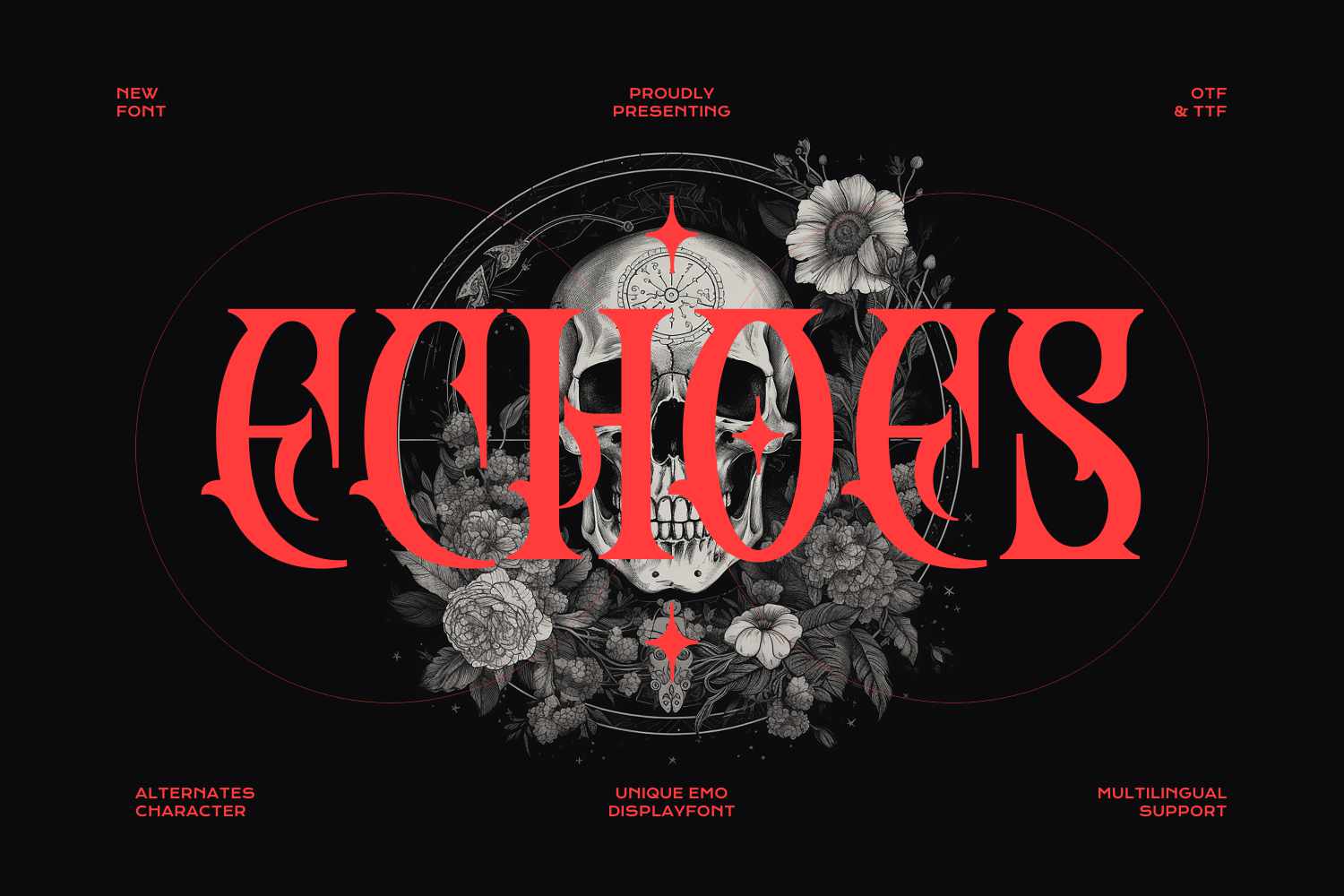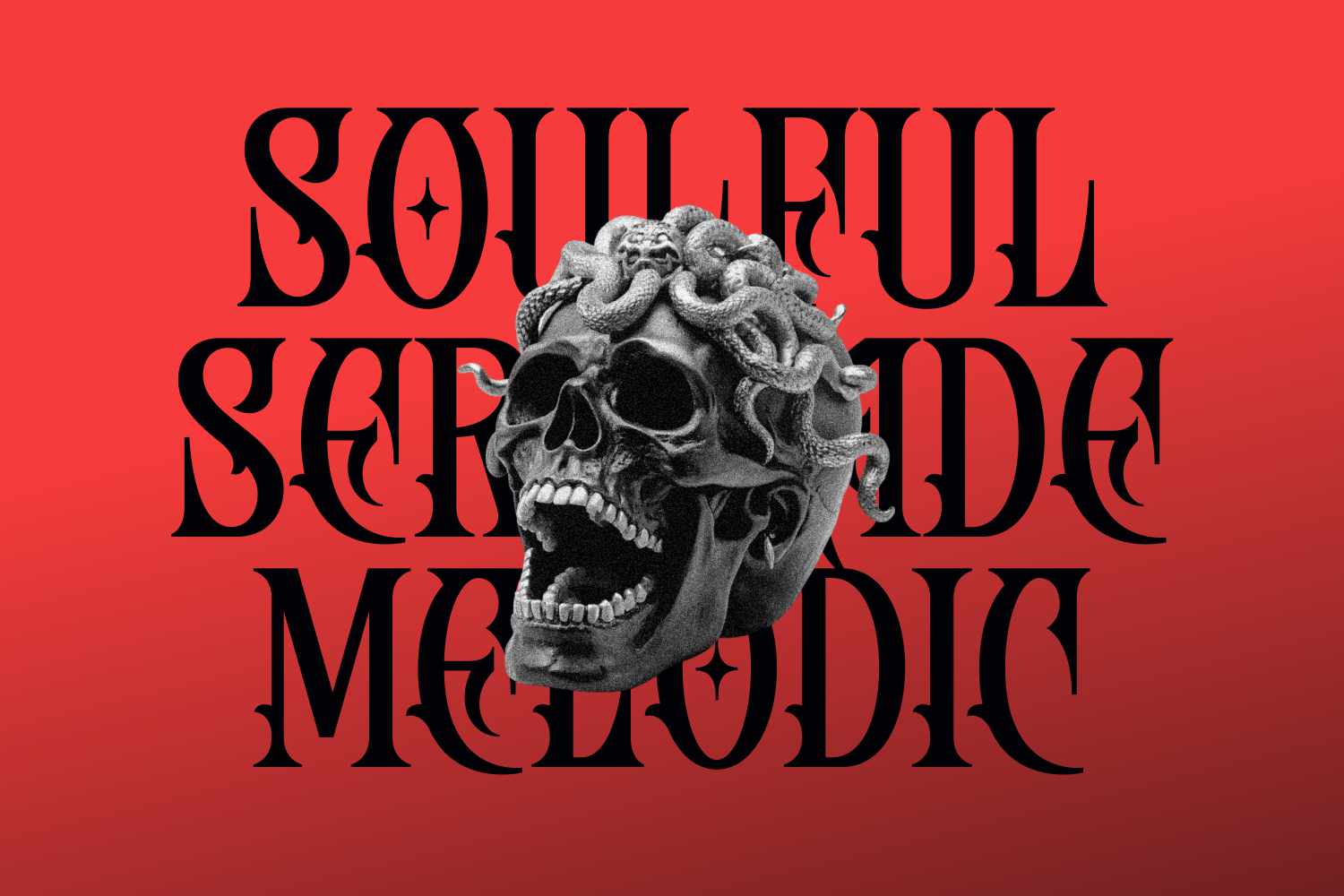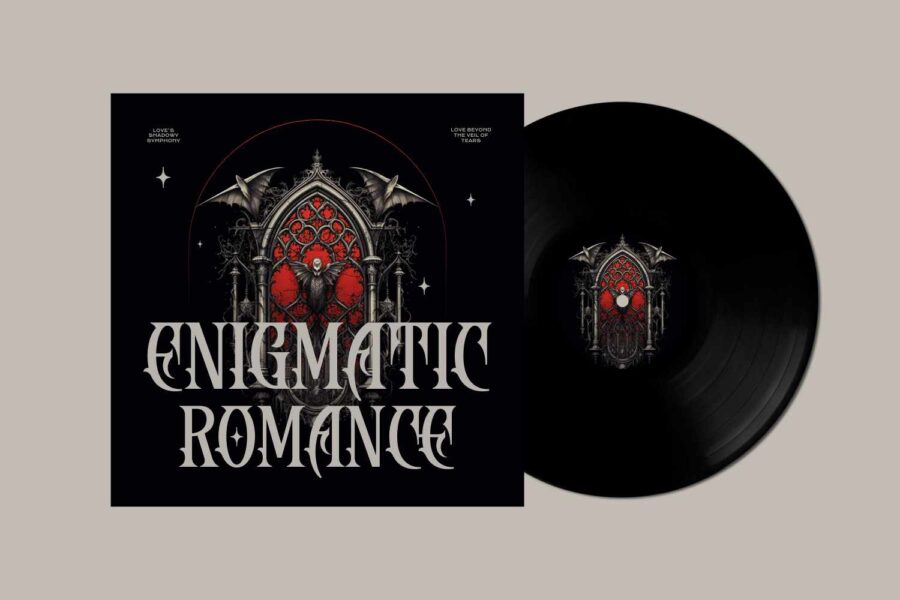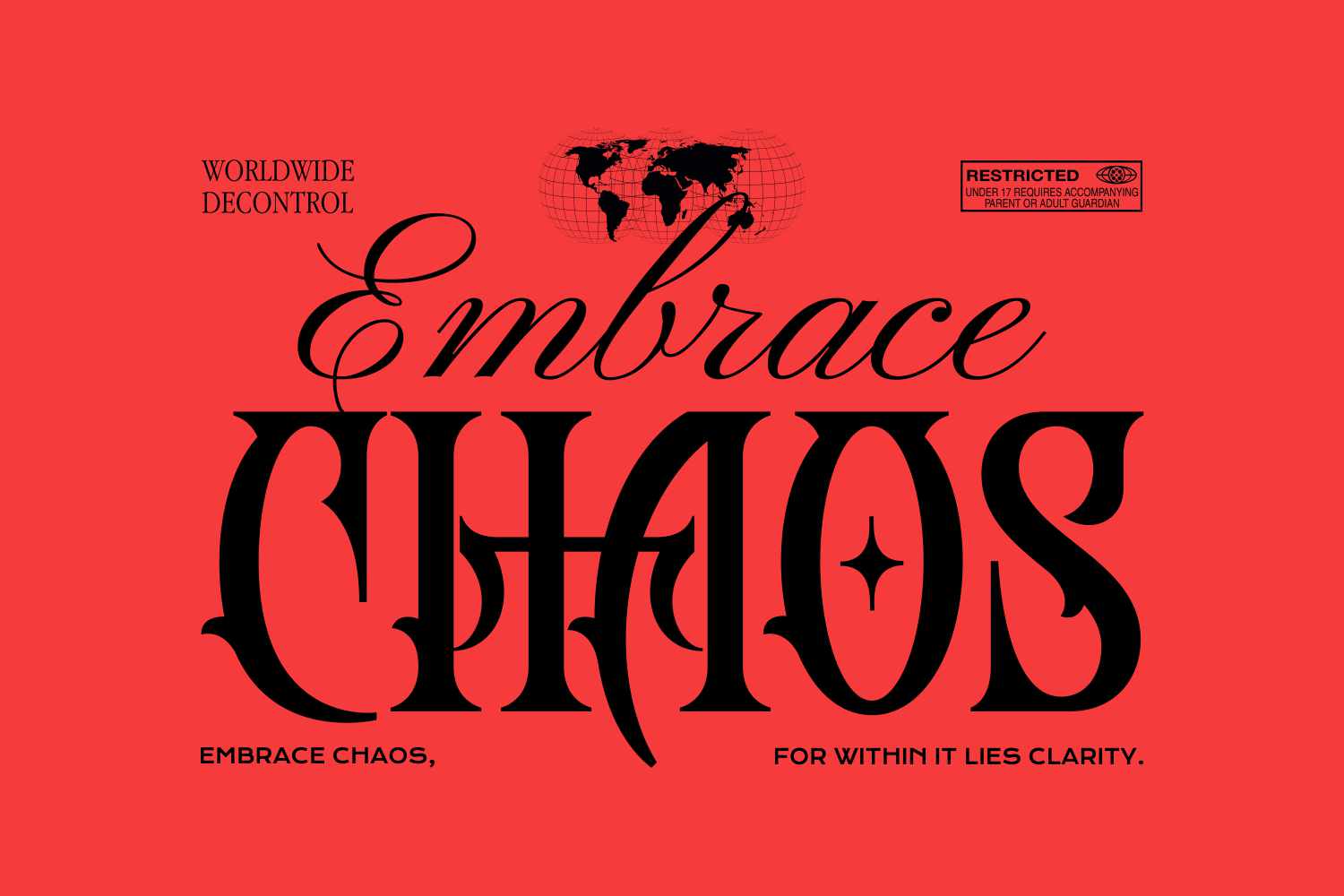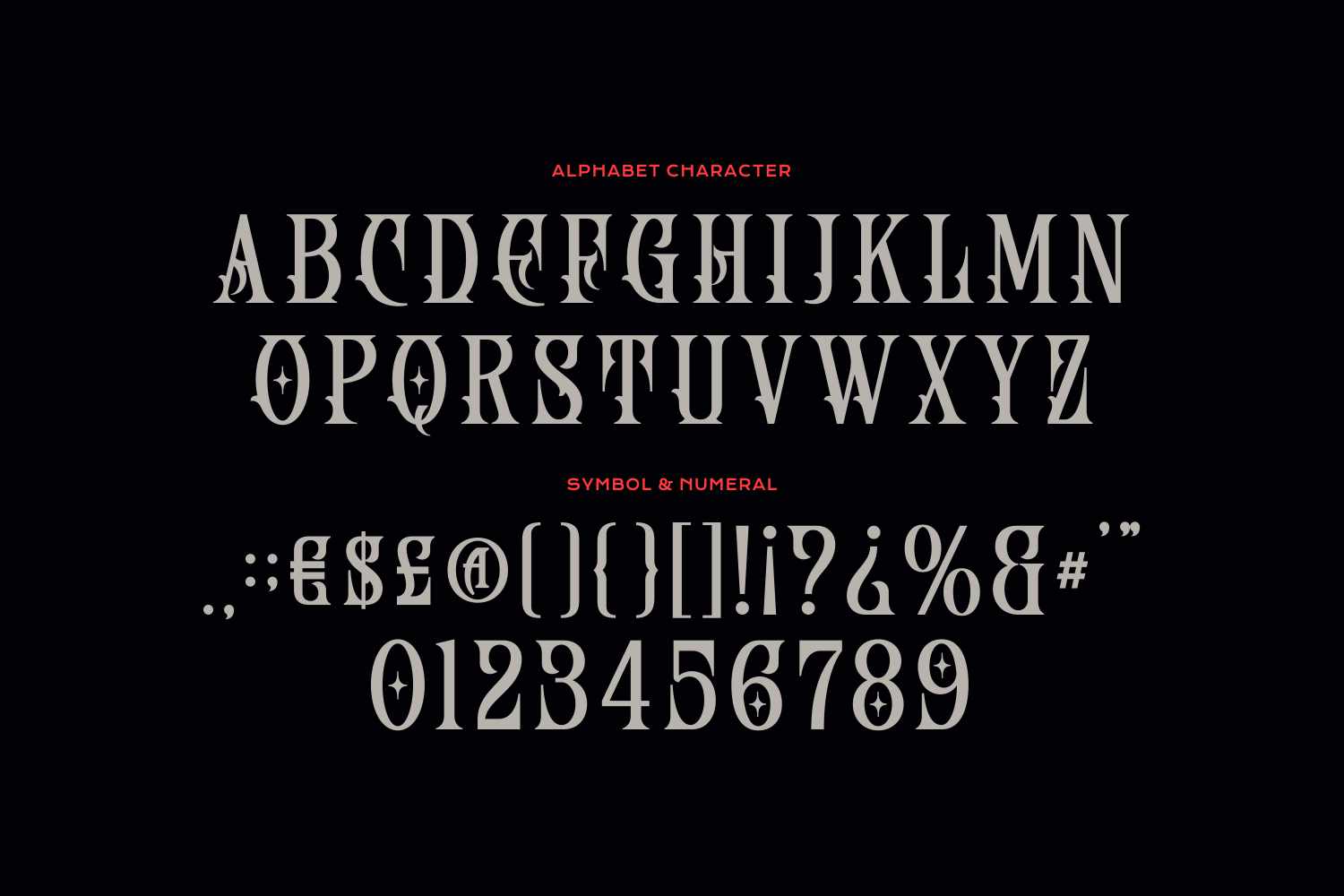
Echoes is a bold and expressive display font that blends gothic elegance with a modern, emo-inspired twist. Featuring sharp serifs, unique alternate characters, and striking decorative elements, this typeface exudes a mysterious yet stylish charm. Perfect for album covers, apparel designs, posters, and branding that crave a dark, dramatic aesthetic, Echoes stands out with its high-contrast letterforms and star-shaped details that capture attention instantly.
Designed for versatility, Echoes comes with uppercase letters, numerals, punctuation, symbols, and multilingual support, making it a powerful choice for both print and digital projects. Whether you’re creating gothic-inspired artwork, edgy editorial layouts, or alternative fashion branding, this font delivers a perfect balance of sophistication and rebellion. Its distinct personality ensures your designs will be both memorable and impactful.